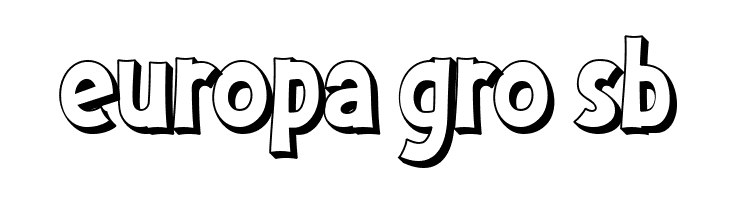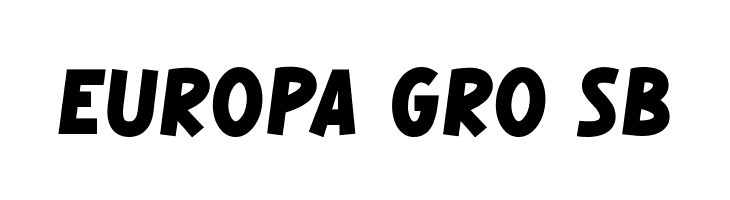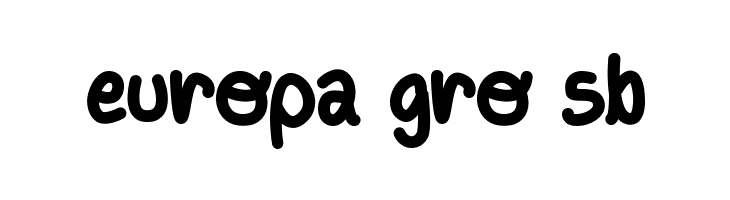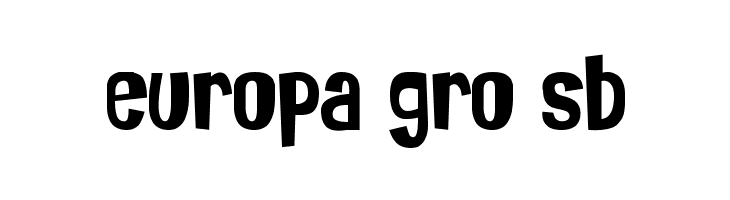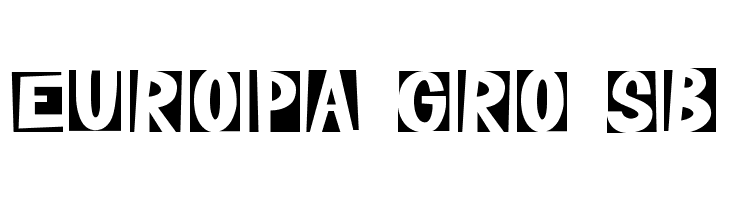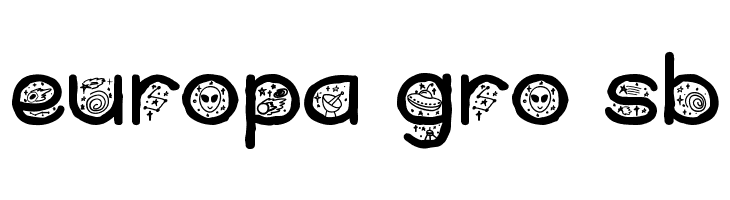
( Fonts by Modestype Studio )
A playful, bold font with rounded, hand-drawn characters.
( Fonts by Alit Design )
A bold, playful 3D font with a cartoonish style and shadow effect.
( Fonts by Tokopress )
A bold, dynamic font with a slight forward slant and modern appeal.
( Fonts by Modestype Studio )
A playful, bold font with rounded, bubbly characters ideal for fun and whimsical projects.
( Fonts by Modestype Studio )
A bold, playful font with exaggerated curves and dynamic strokes.
( Fonts by Modestype Studio )
A playful, curly font with a whimsical, hand-drawn style.
( Fonts by Skytroopas )
A bold, space-themed decorative font with playful cosmic elements.
( Fonts by Tokopress )
A bold, modern sans-serif font with decorative dotted uppercase letters.
( Fonts by Tokopress )
A bold, geometric font with dynamic angles and high contrast.
( Fonts by Skytroopas )
A whimsical, decorative font with cosmic motifs in each character.